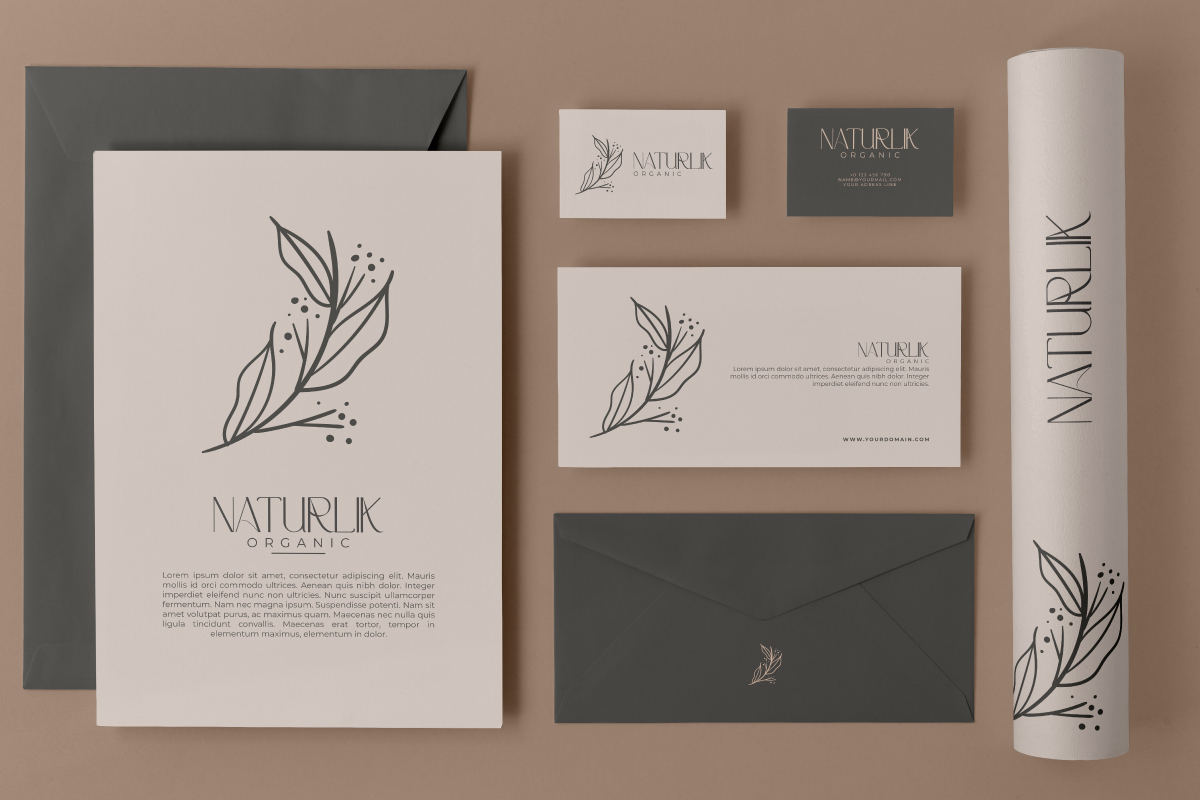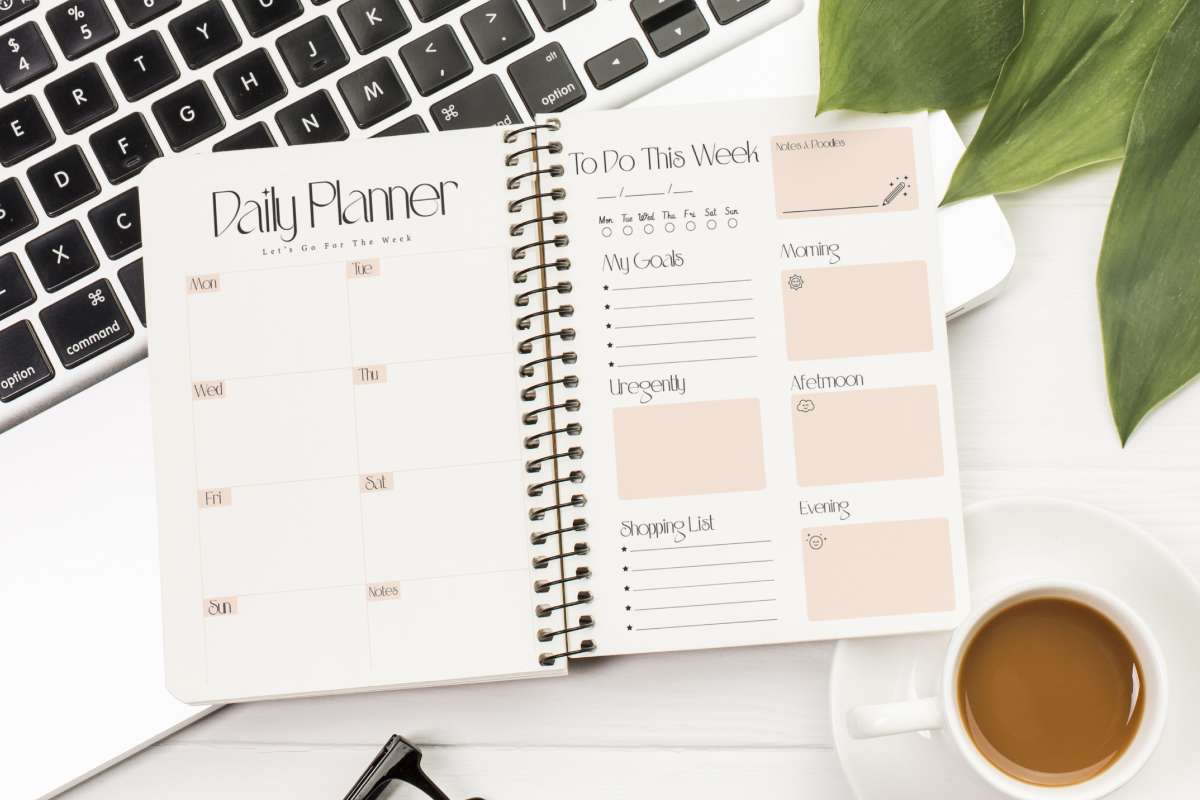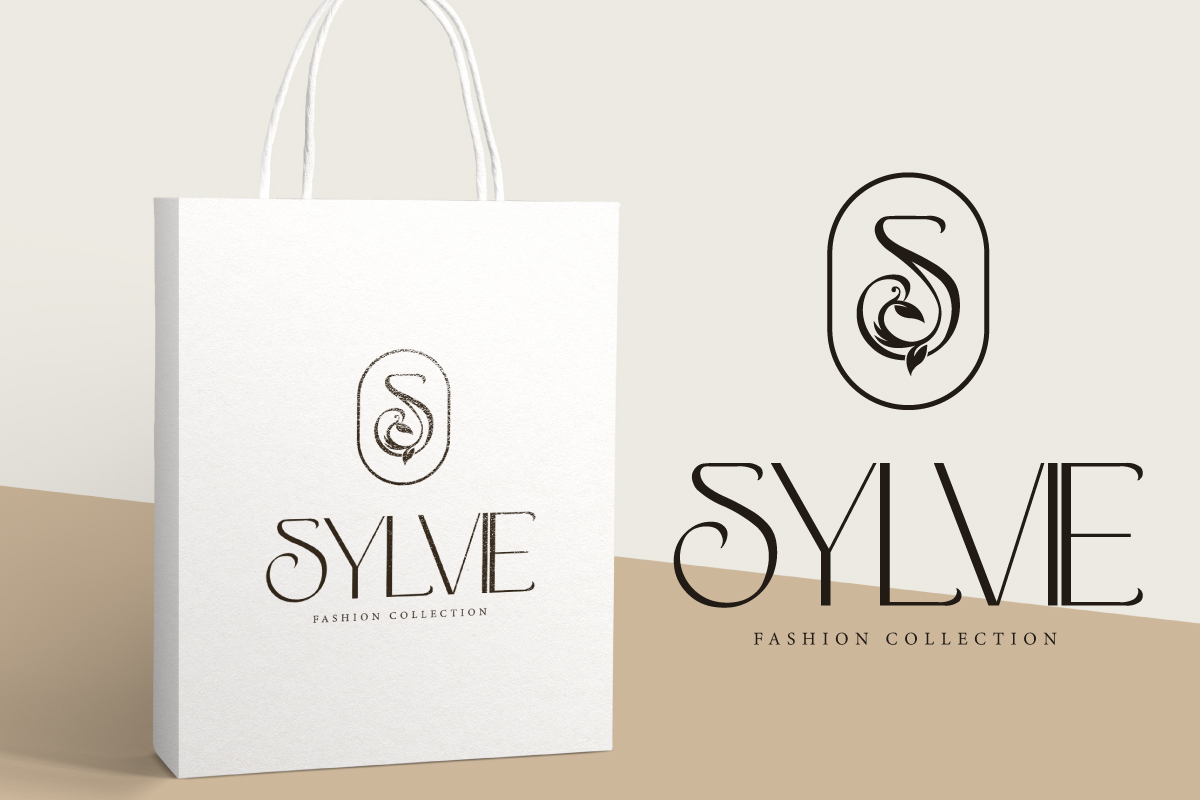
Daily Super Font
Daily Super Sans Serif Font
It’s a glamour display font, created by NihStudio. This font has thin and high lines so that it can show a luxurious elegant look. So it’s still easy to read and suitable for many industries, such as cosmetic, fashion, furniture, jewelry, publishing, restaurant, spa salon, and more!